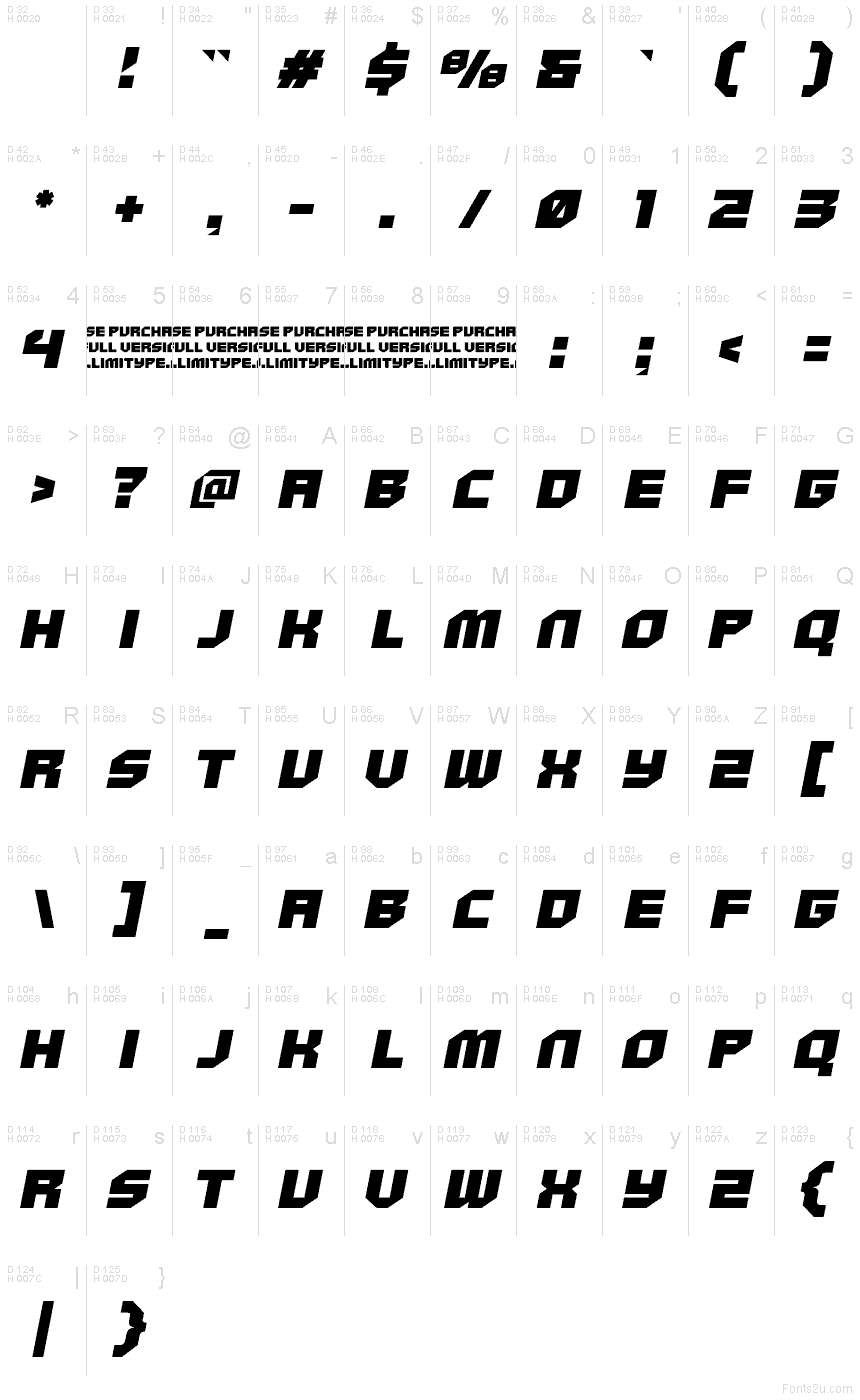
Cyberform Demo Oblique
Cyberform Oblique font by Limitype is a futuristic display typeface with a bold, expanded style. Its geometric and angular aesthetic gives it a strong presence, along with a technological vibe. All of these features combine beautifully to create an accessible typographic style that allows users to take full advantage while working on illustration and design projects as well as other works.
Unleash your creativity on posters, website designs, logos for tech-centered businesses or products, or magazine articles. Cyberform Oblique will also be fitting for covers with sci-fi themes whether they’re for albums or books. And since it can be used both decoratively and functionally, you can mix things up a bit whenever needed too!